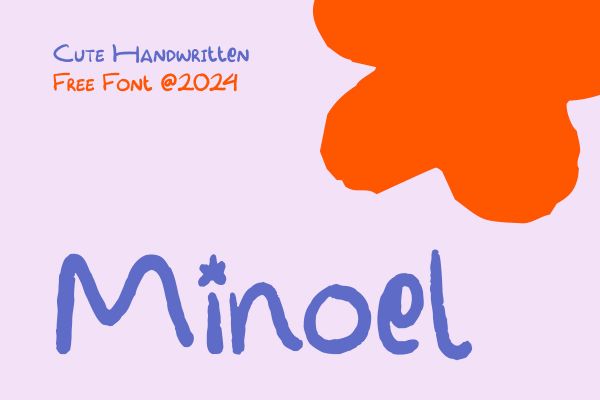
Minoel Font
Minoel by sloulyfe isnaini is a free cute casual handwritten font that brings a warm, fun, and irresistibly charming personality to any design that needs to feel approachable and human. Its adorable letterforms carry genuine character without tipping into excessive novelty — making it adaptable across a surprisingly wide range of applications including social media graphics, stationery, children’s content, greeting cards, product packaging, branding, and Canva templates. Multilingual support, alternate characters, and PUA encoding for easy access round out a very complete release. Available free with a standard commercial license — no strings attached.